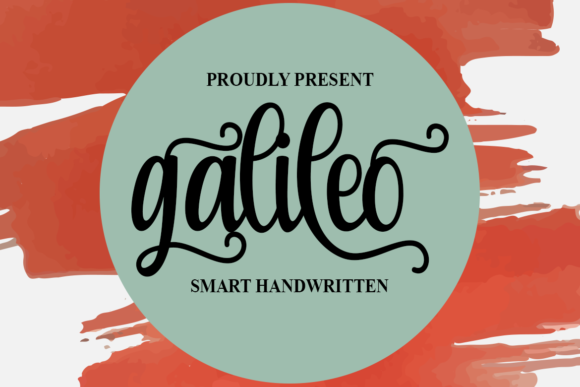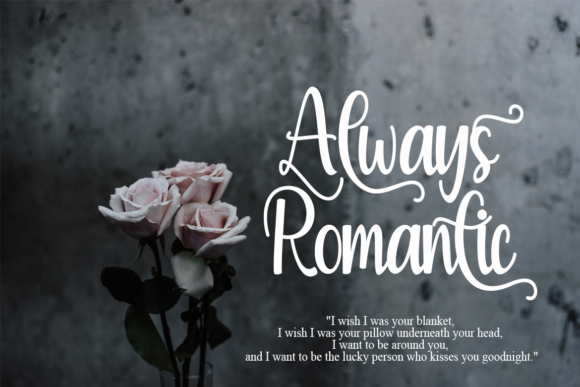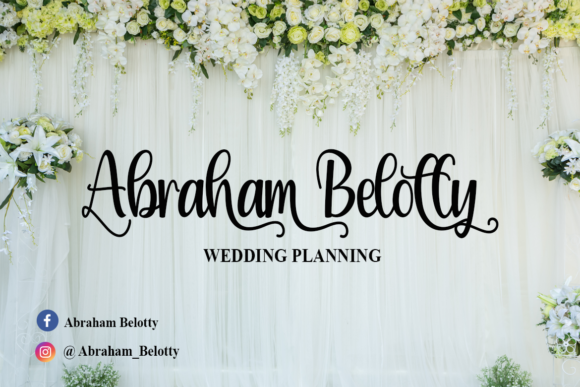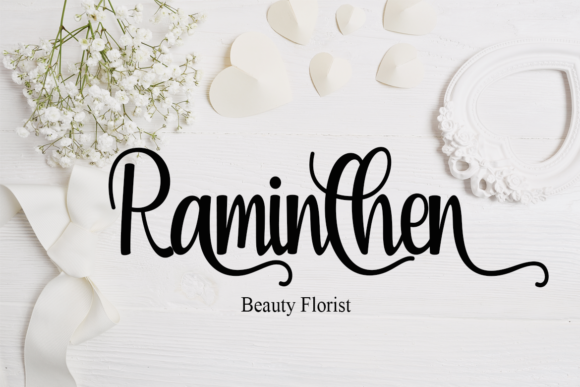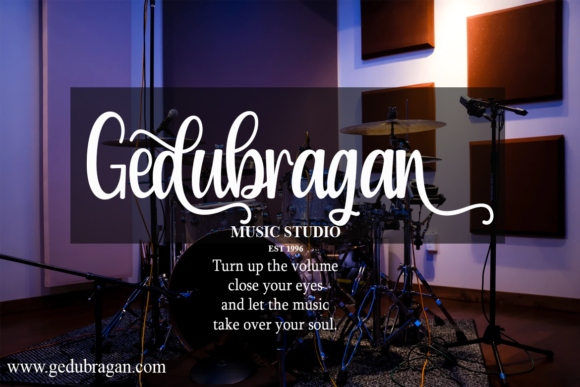
Galileo Font
About Galileo Font
Galileo is a gorgeous script font. This font is neatly crafted and highly detailed. Whatever the topic, this font will be a wonderful asset to your font library, as it has the potential to enhance any creation.